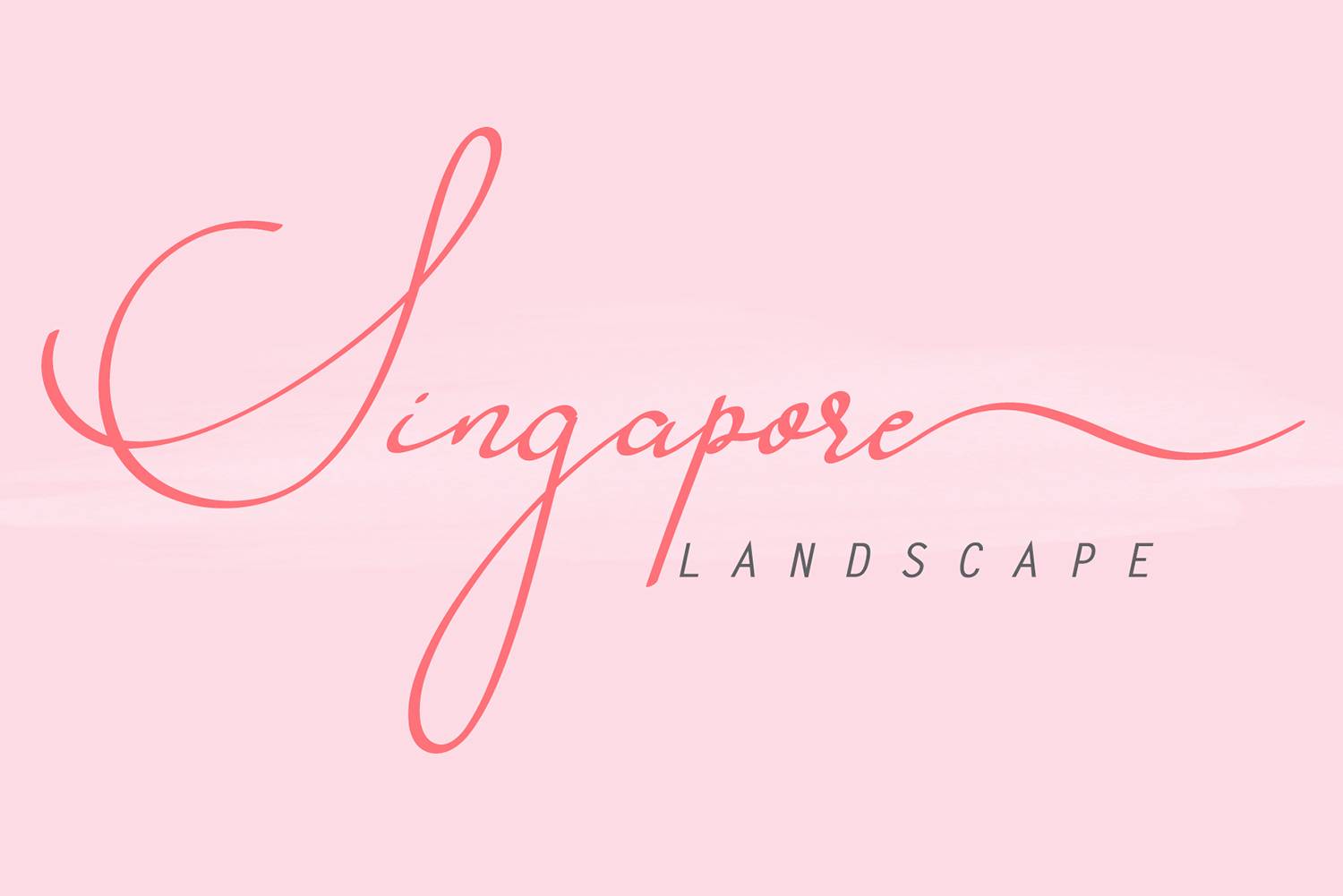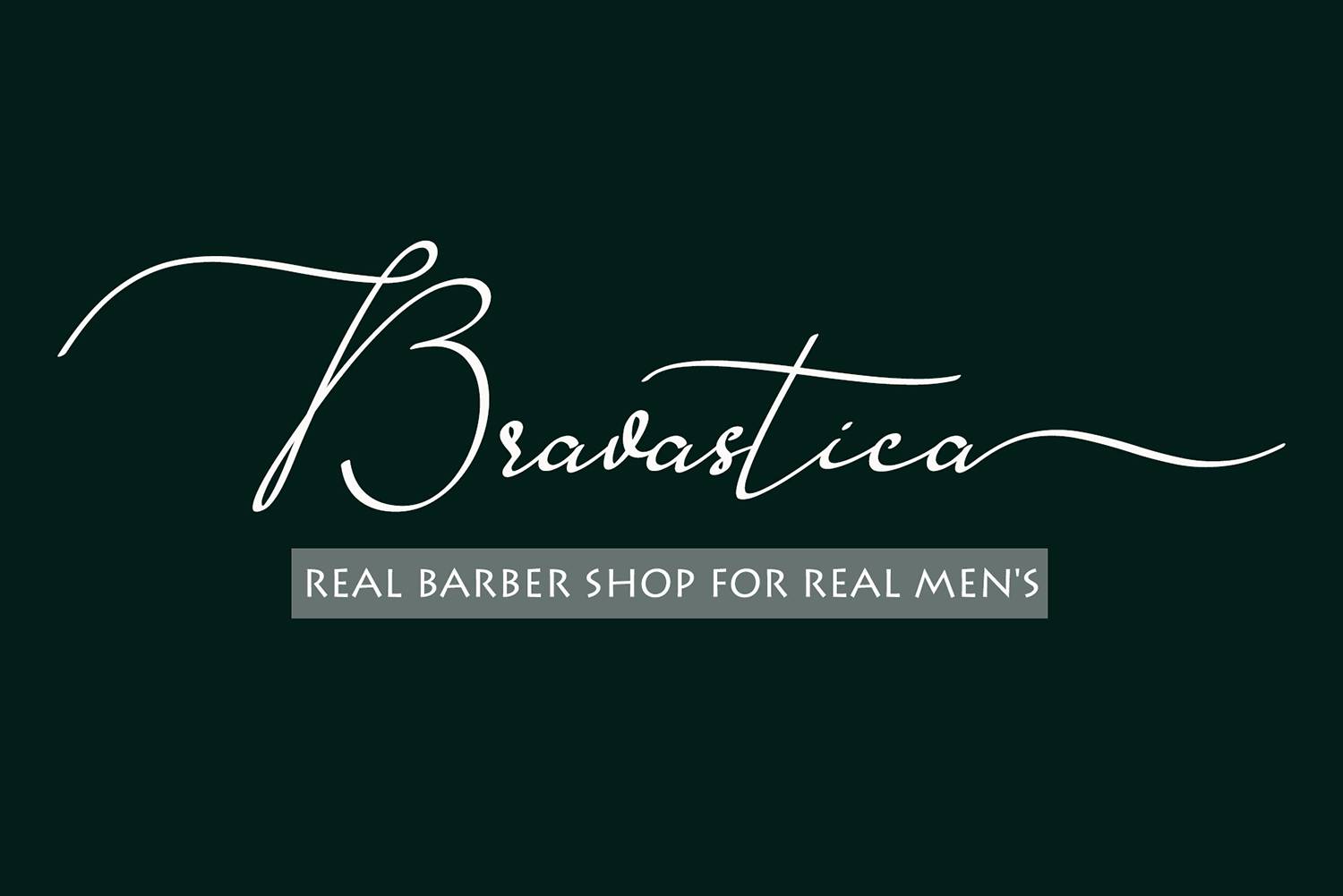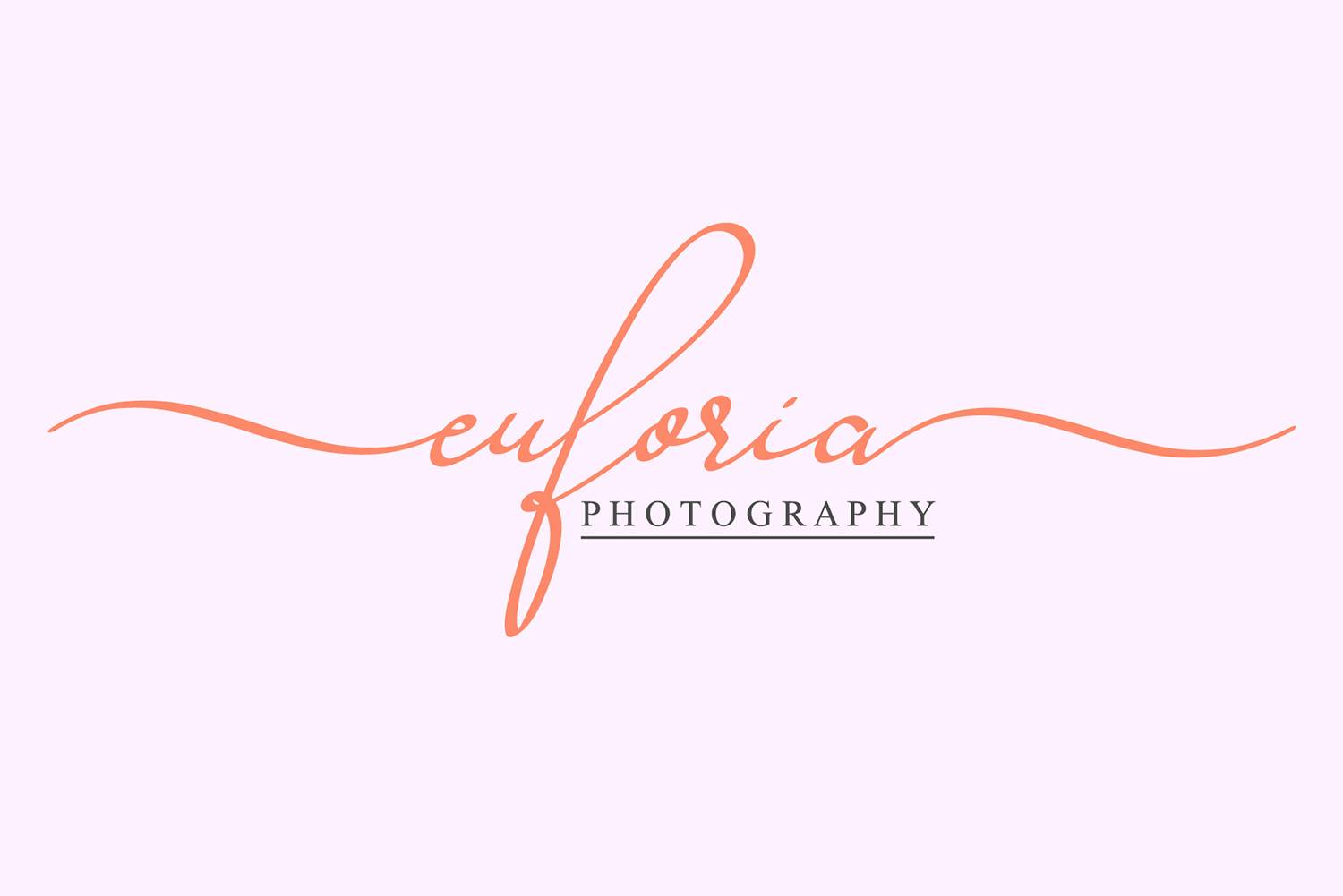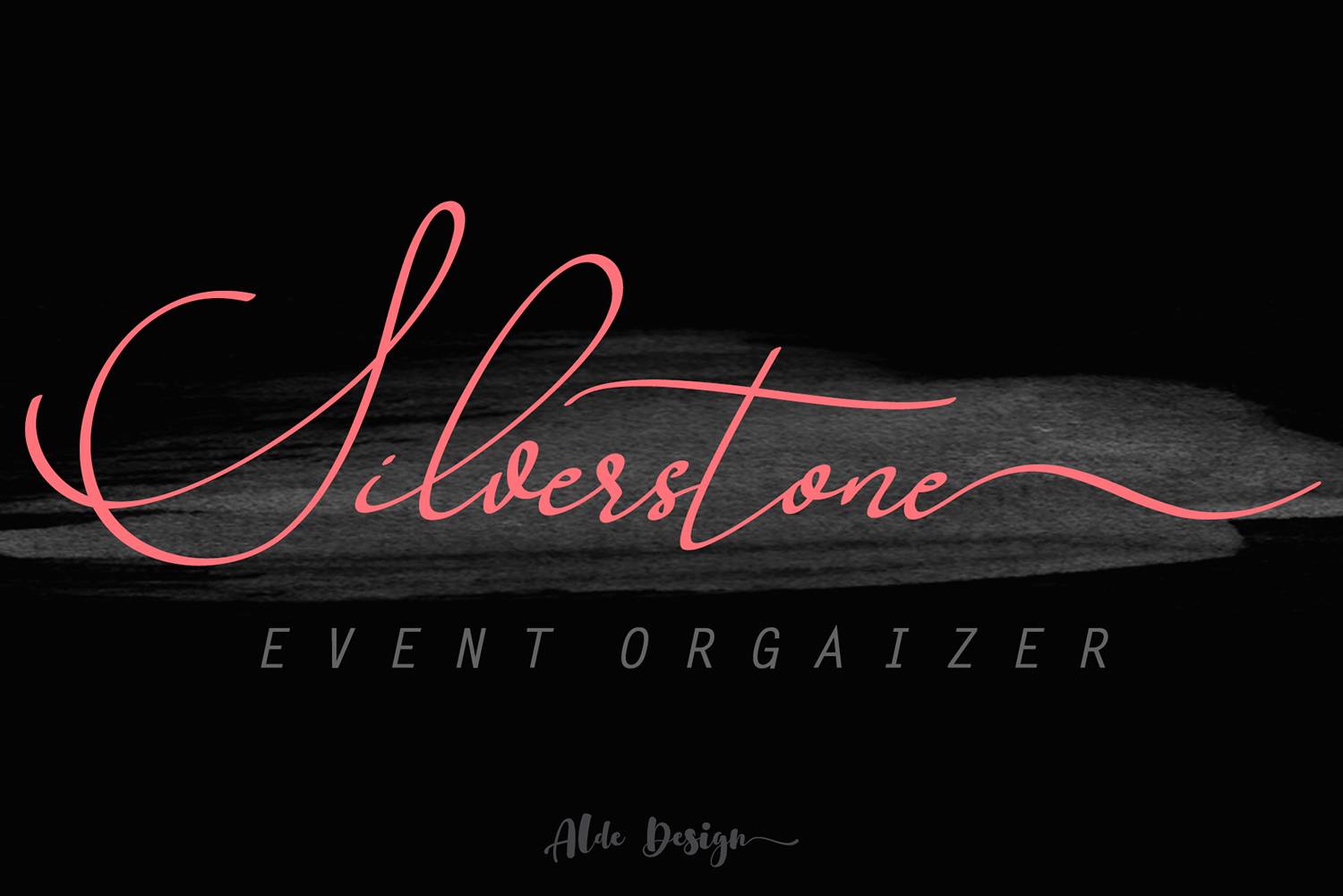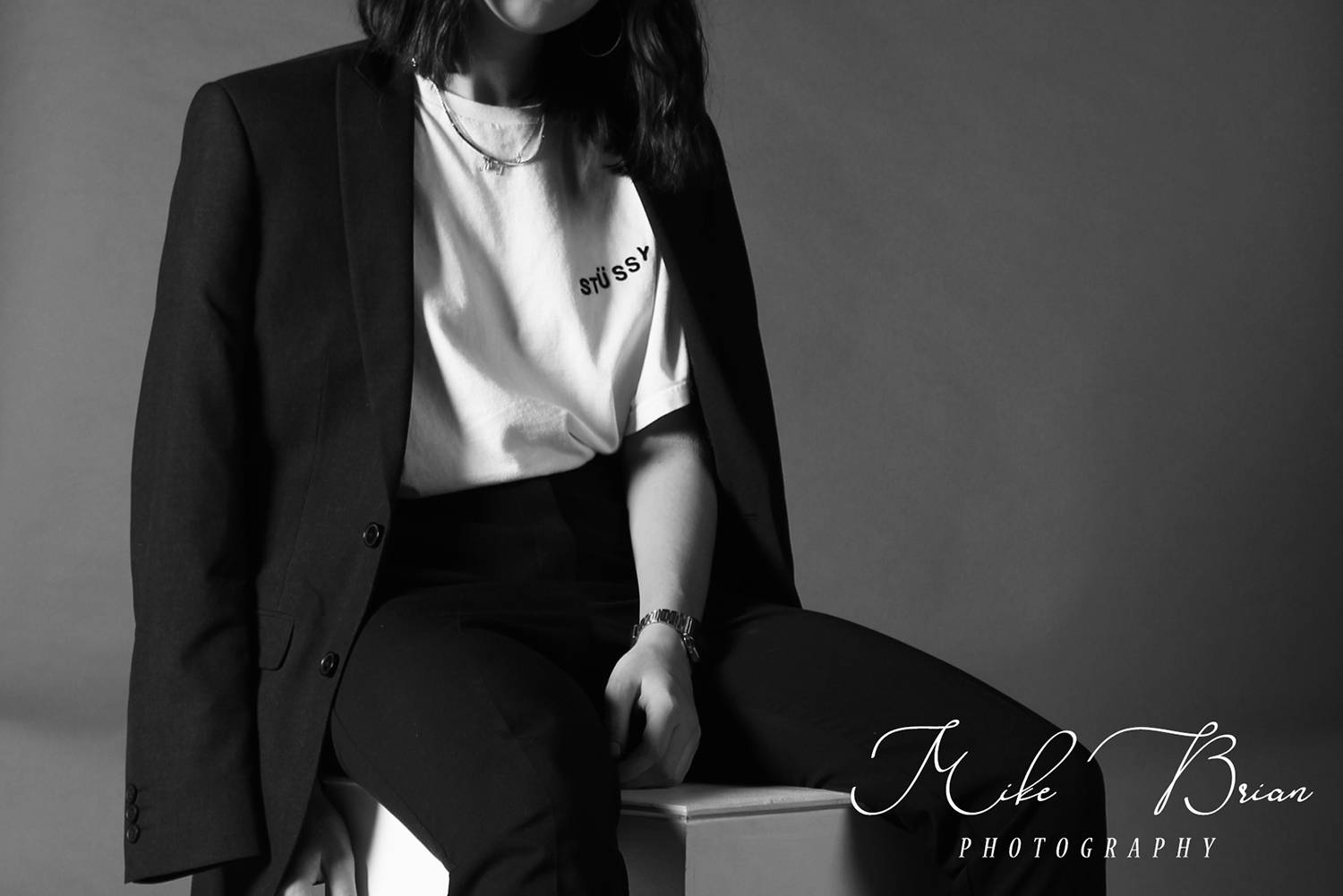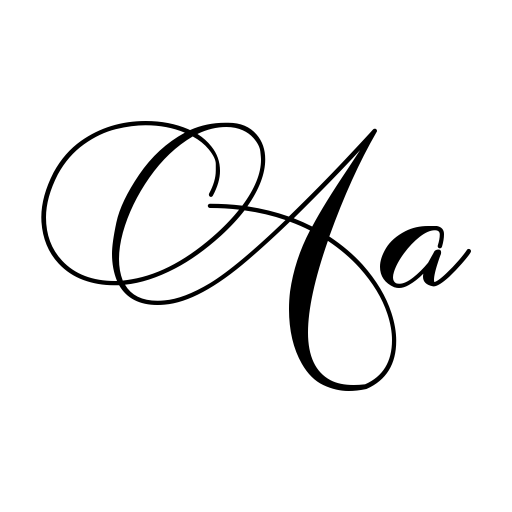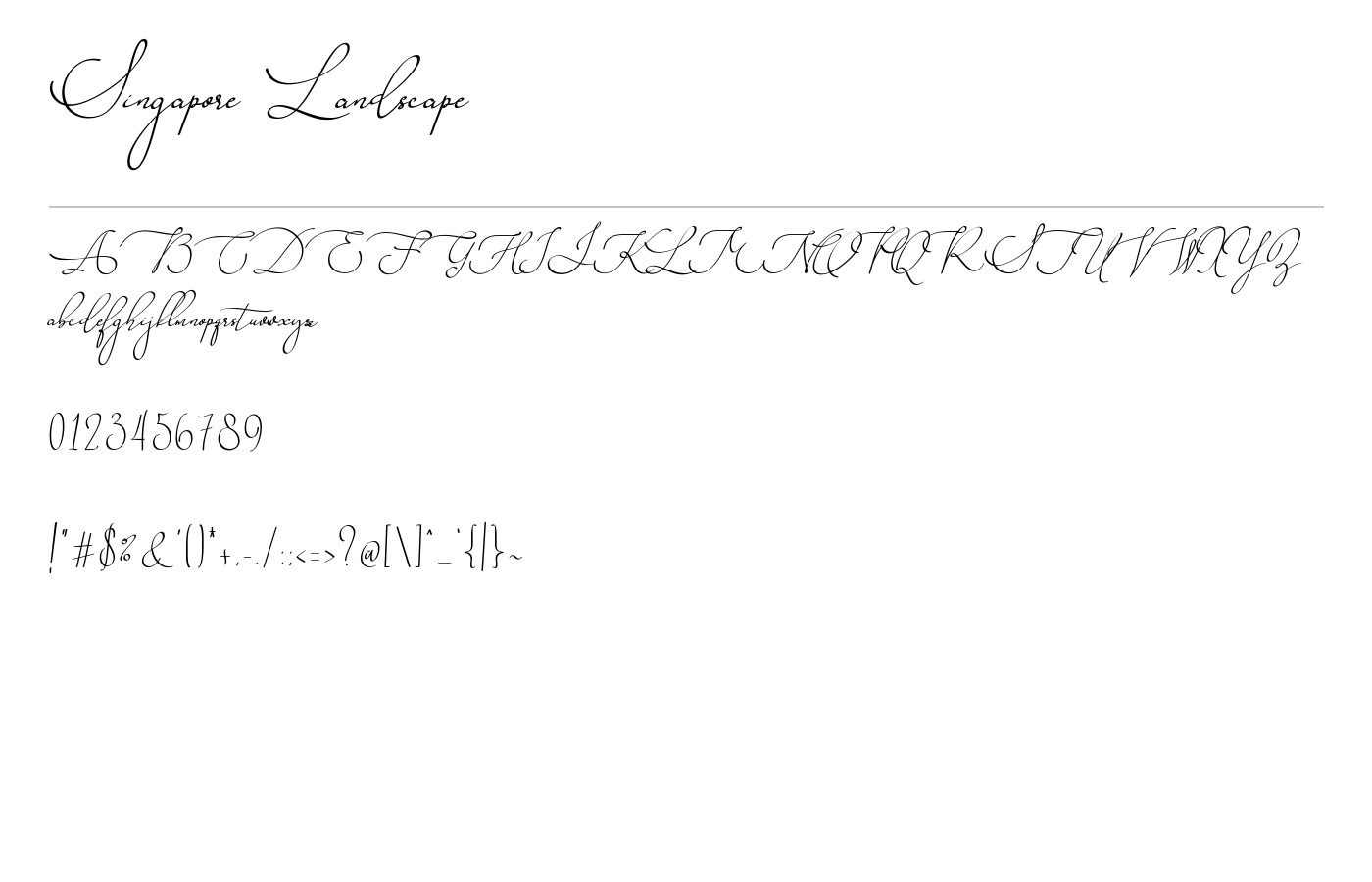
Singapore Landscape is an elegant, delicate script font characterized by its fine, flowing strokes and high contrast between thick and thin lines. It evokes a refined, sophisticated atmosphere ideal for luxury branding, wedding invitations, and upscale editorial design. Its graceful, handwritten style adds a personal and artistic touch, making it perfect for projects that seek to convey beauty and elegance.
Singapore Landscape Font
About Singapore Landscape Font
| Font family | Singapore Landscape Font |
| Designer | Aldedesign 2019 |